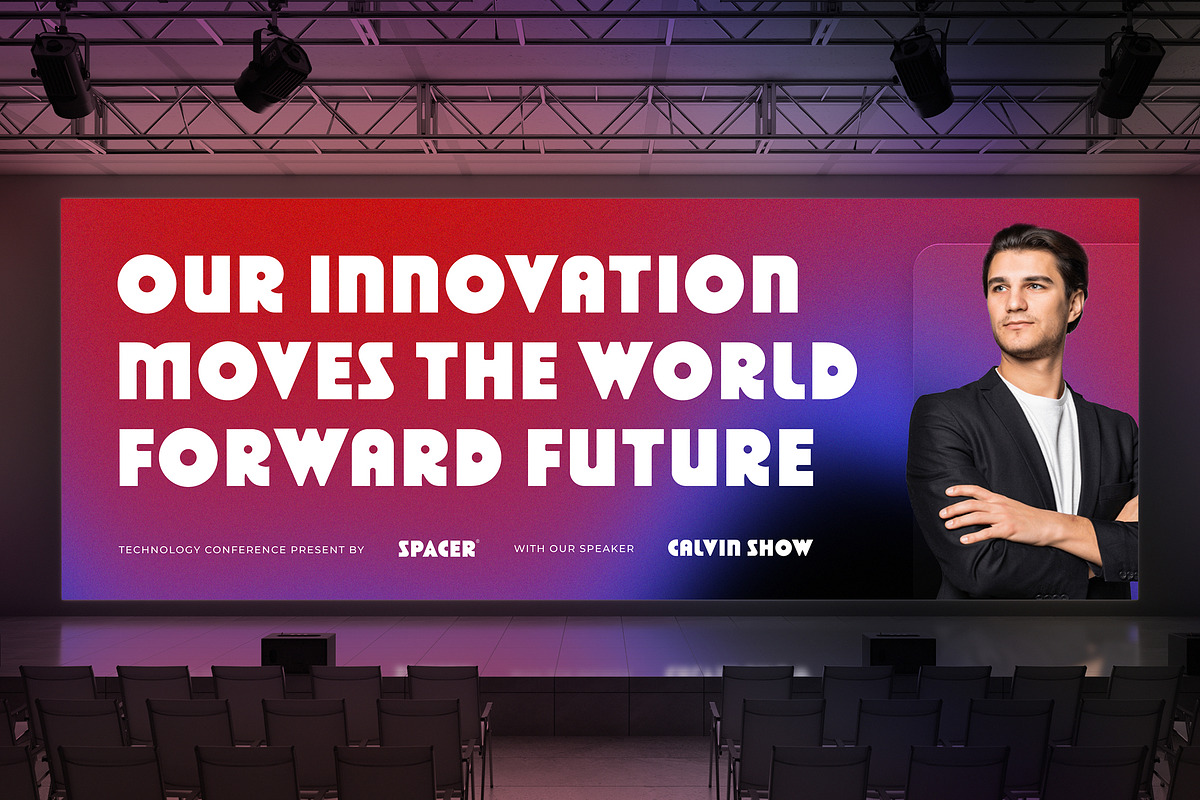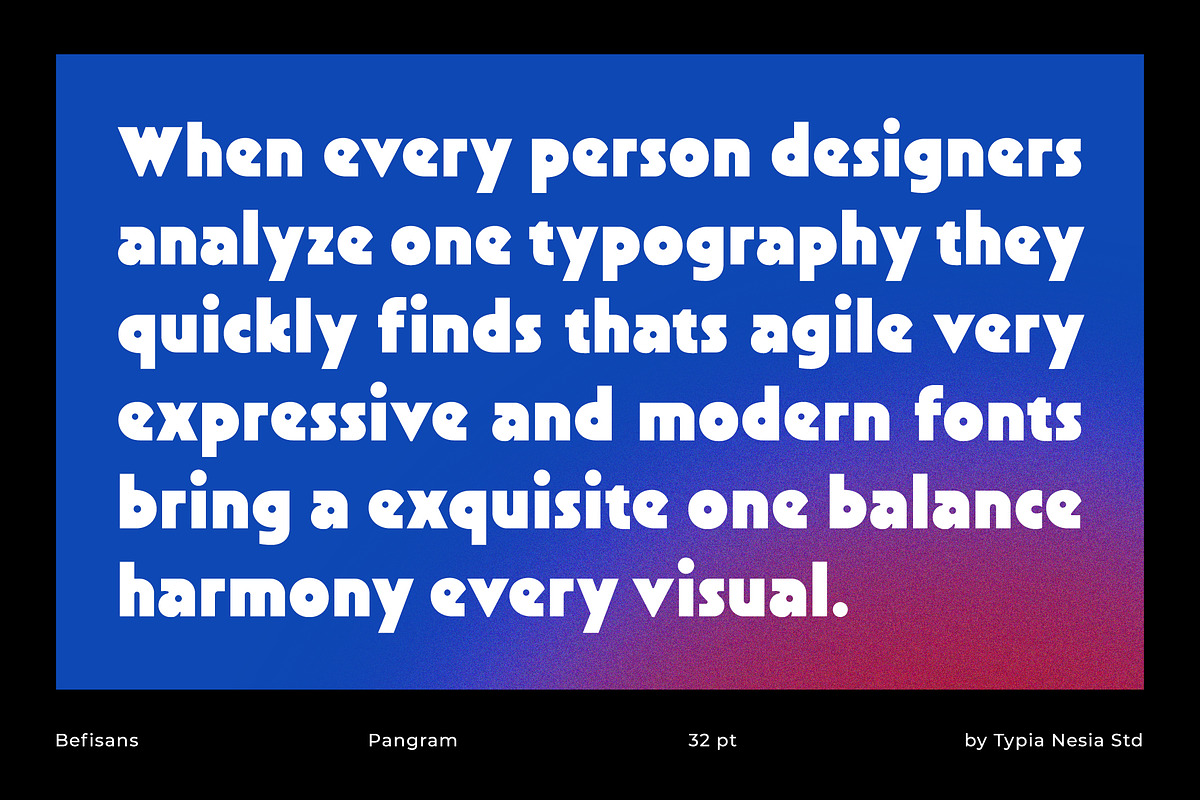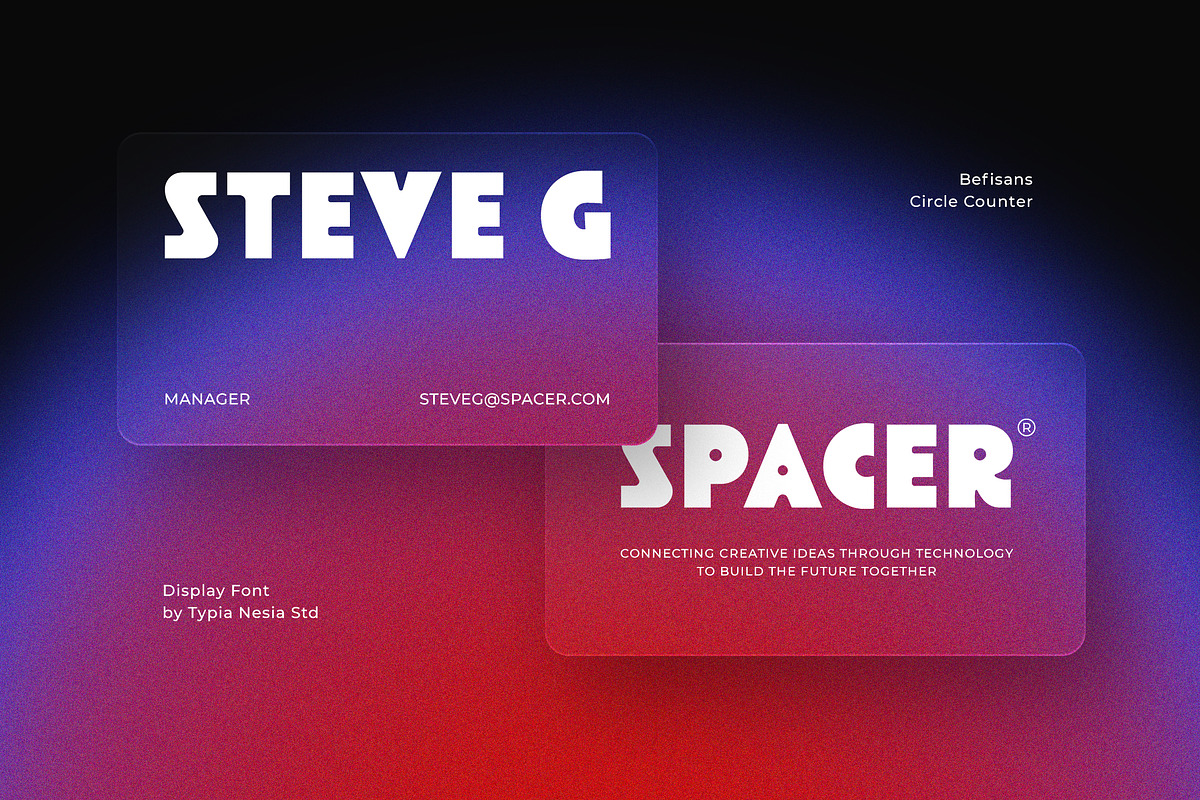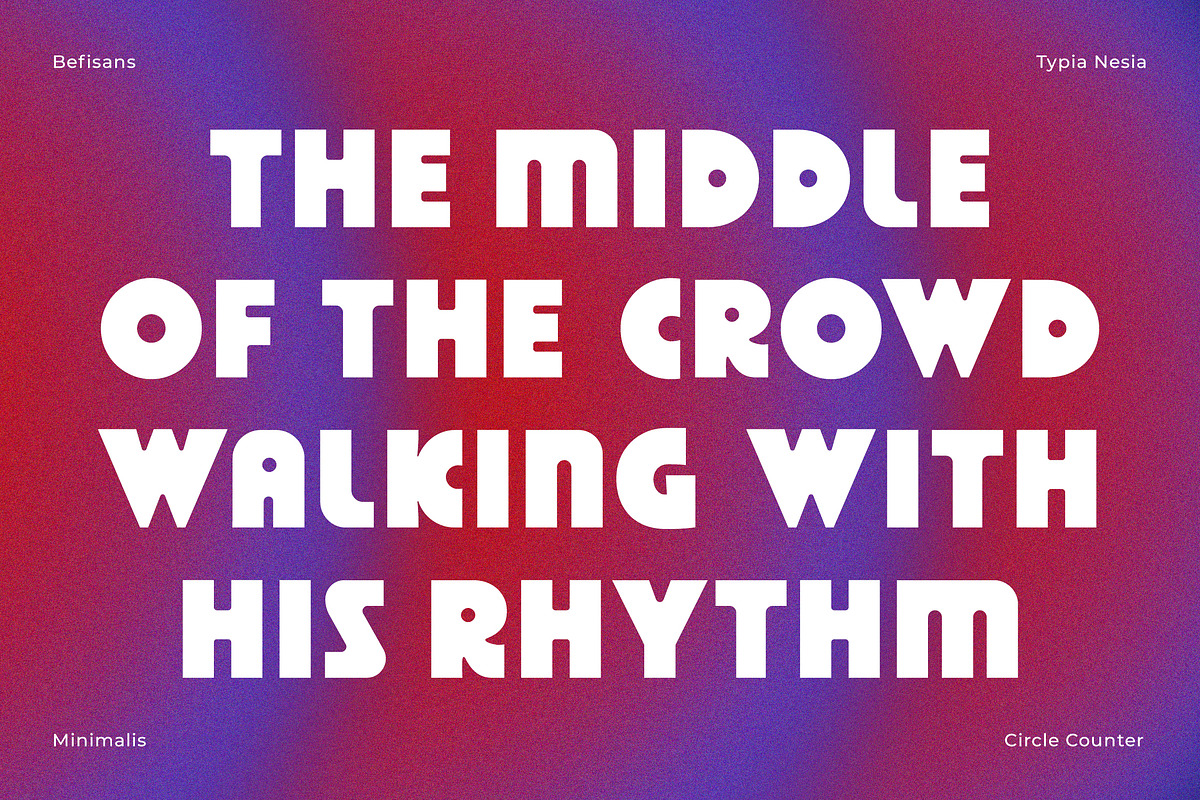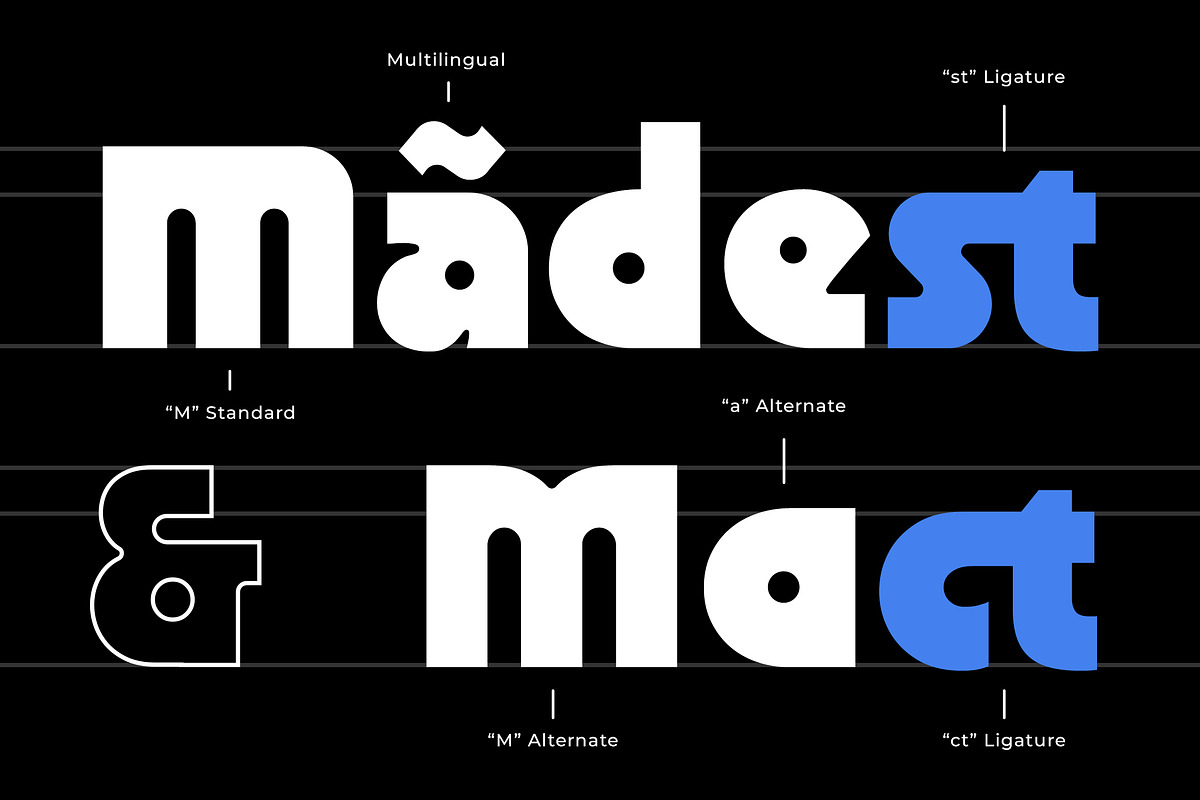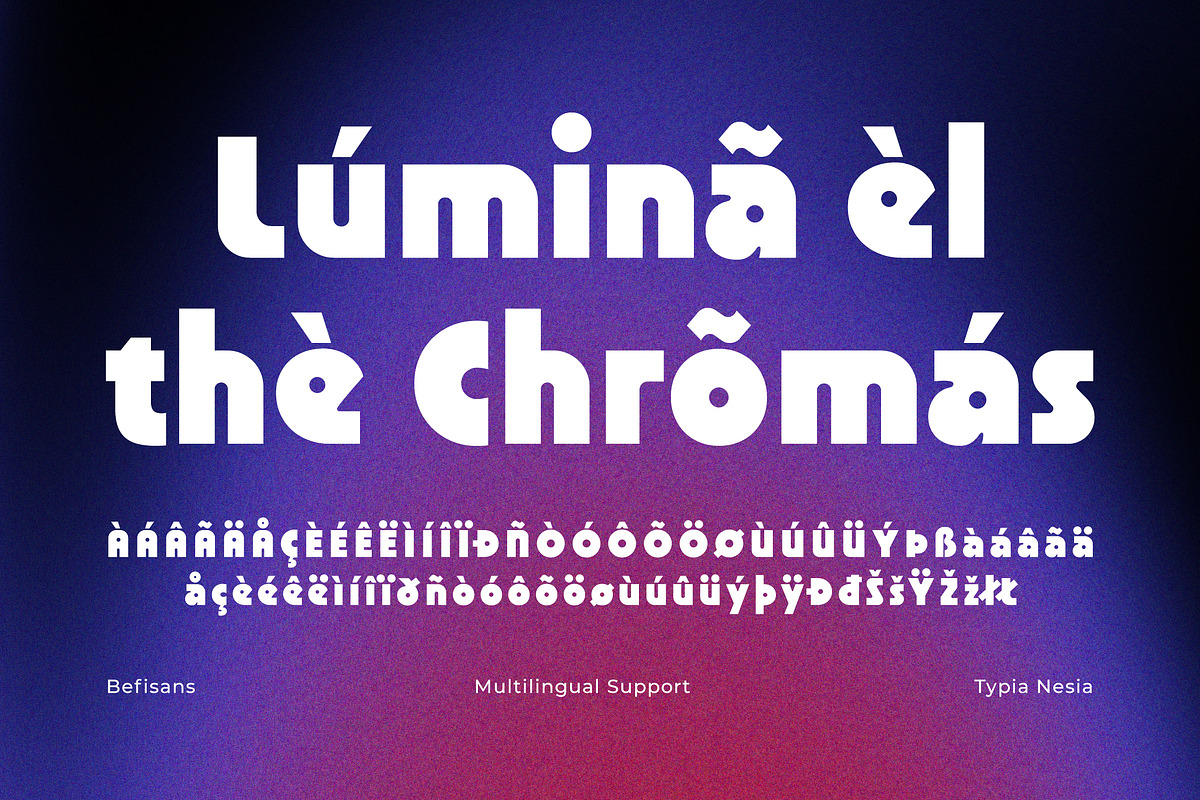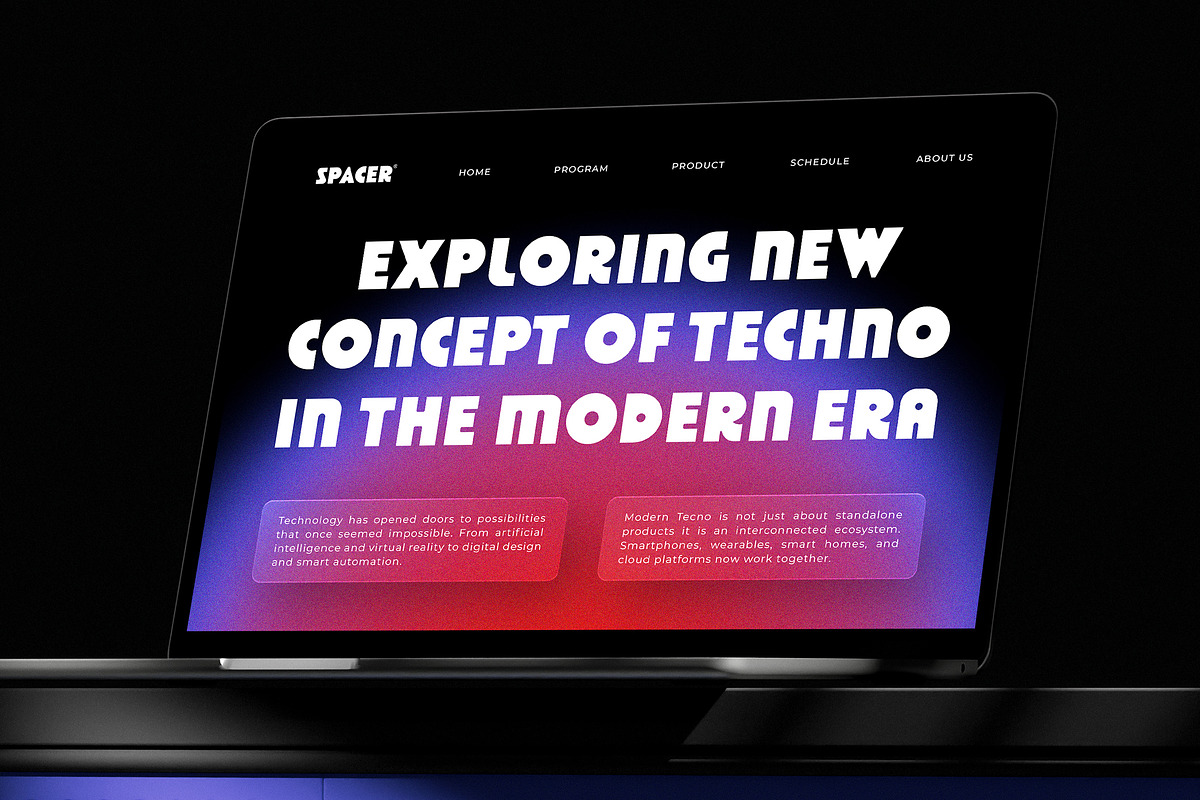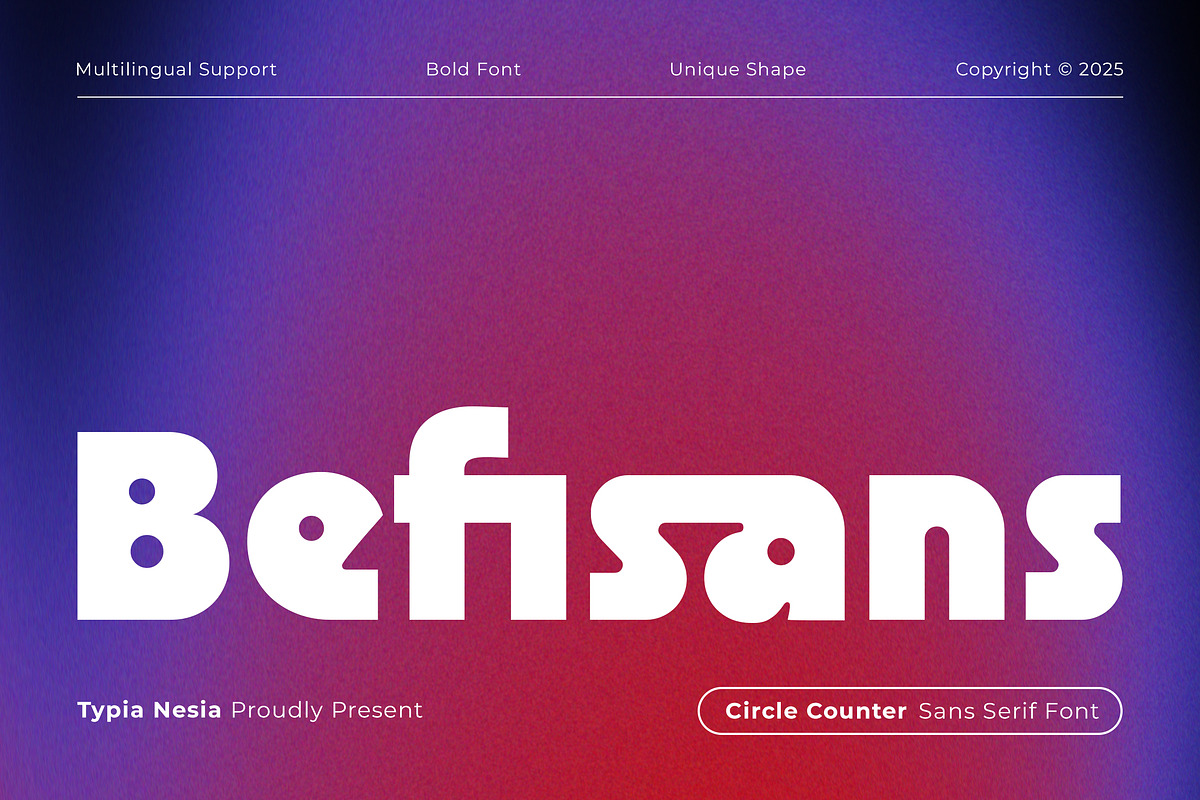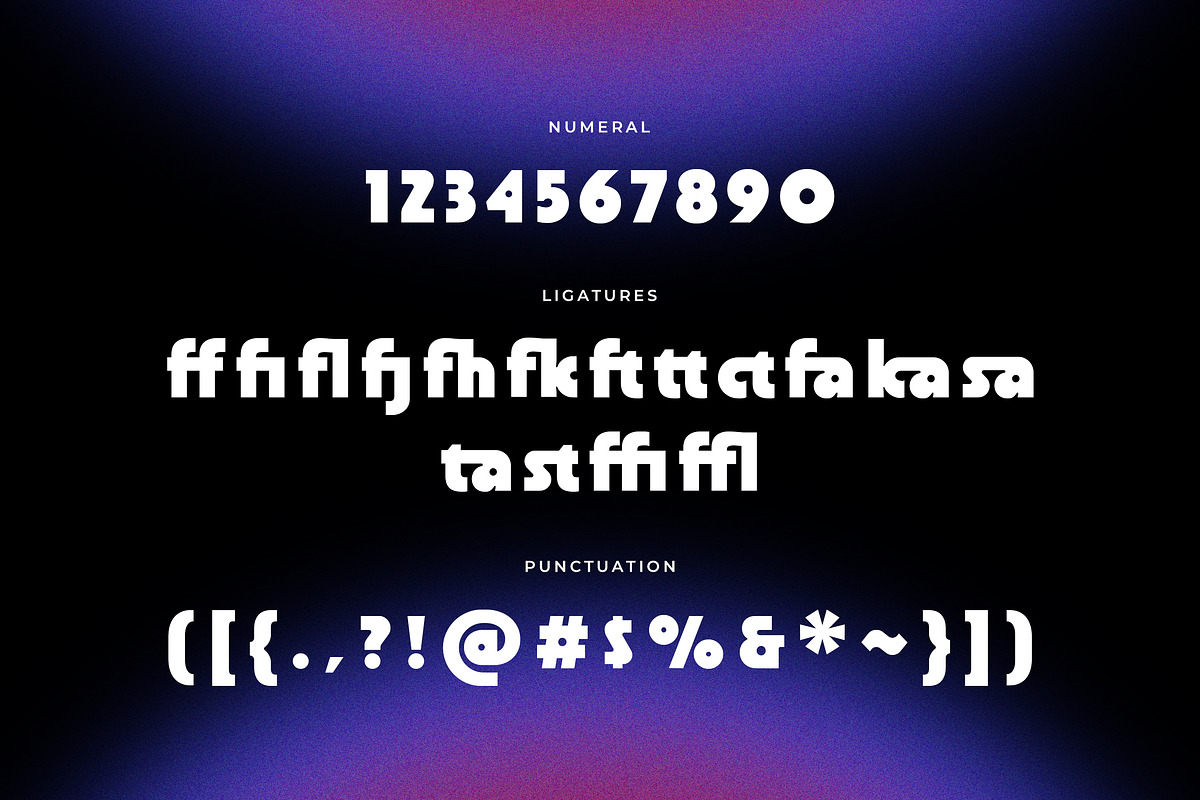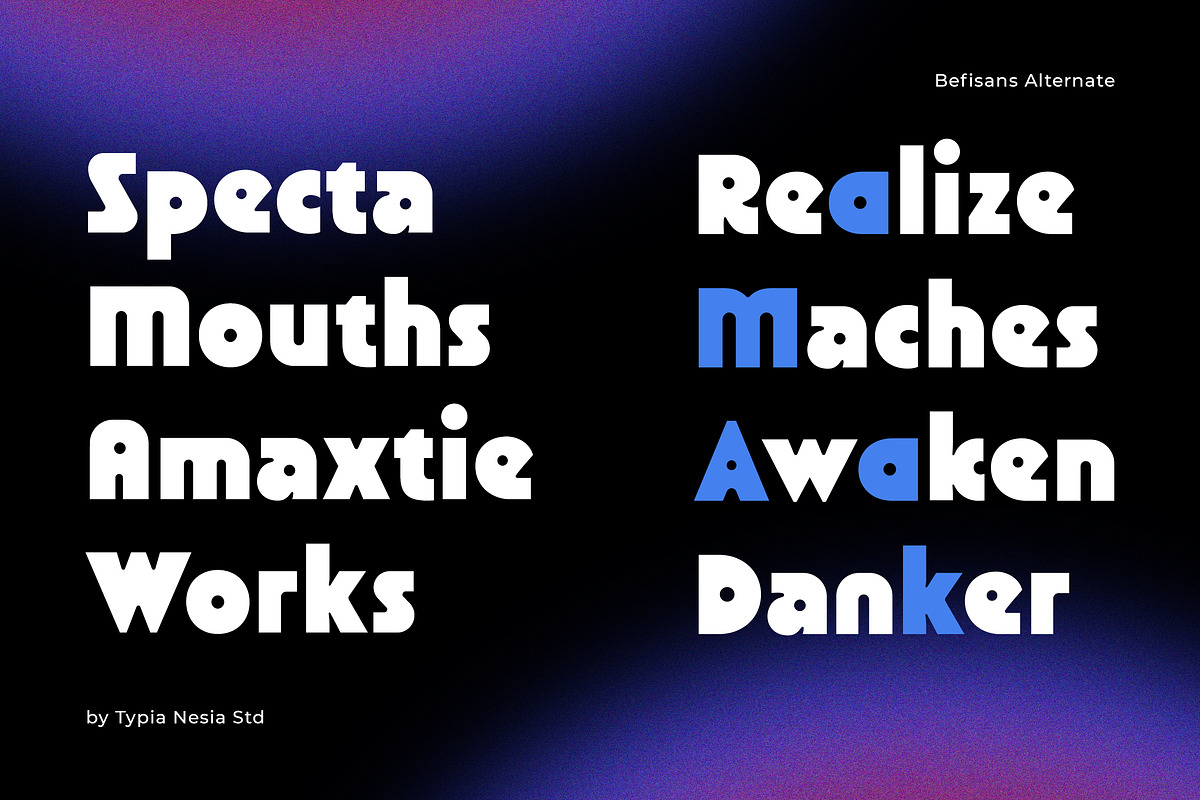
Befisans - Bold Clean Retro Sans
Befisans - Bold Clean Retro Sans Serif - Modern Minimal Logo Display Font
Befisans – Bold Clean Retro Sans Serif Font is a modern bold sans serif typeface with a clean structure and subtle retro feel, designed for clarity and strong visual impact. Its minimal and well-balanced letterforms make it perfect for logos, logotypes, headlines, and professional branding, while maintaining excellent readability across packaging, corporate identity, startup projects, food brands, cafes, and any projects that need a clean, confident, and approachable look. With its bold yet tidy character, this font helps your designs appear modern, professional, and memorable.